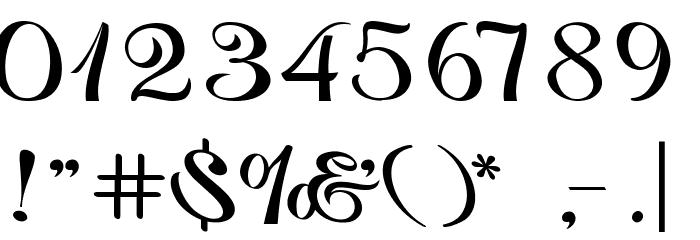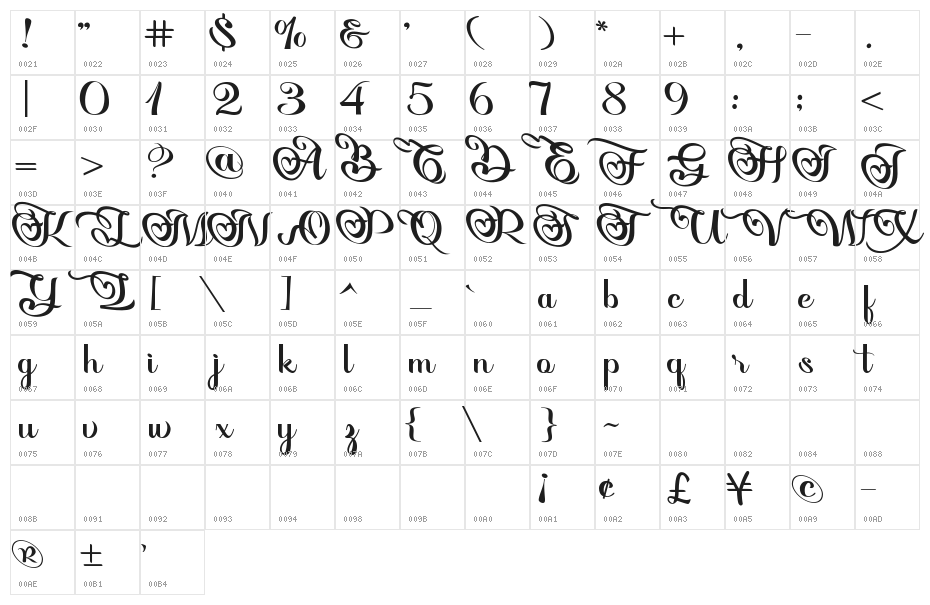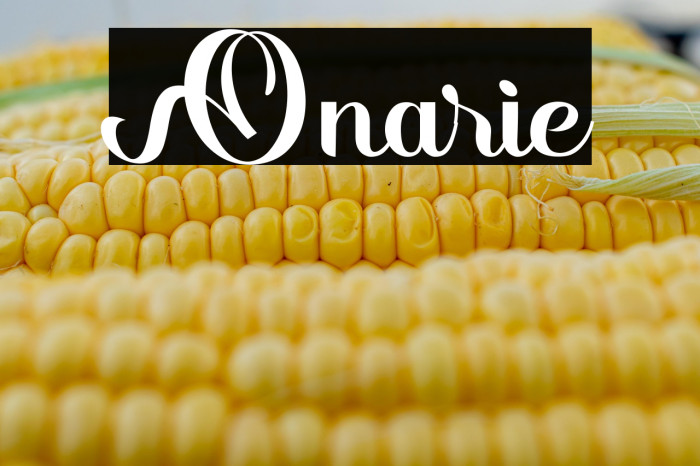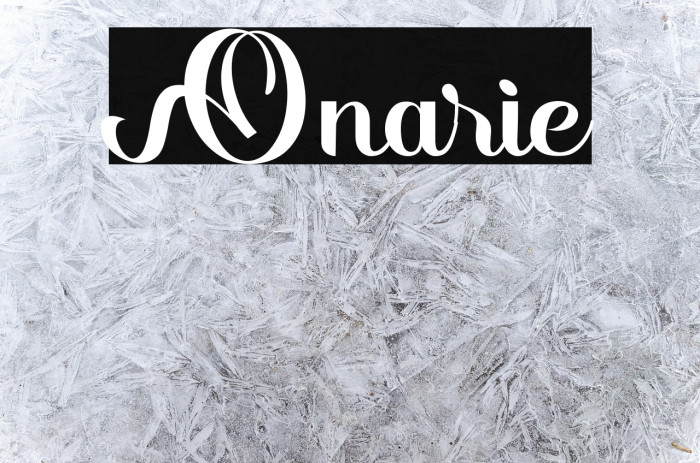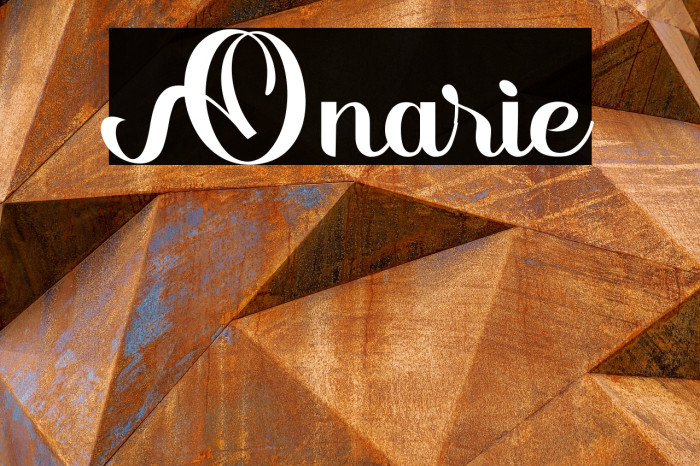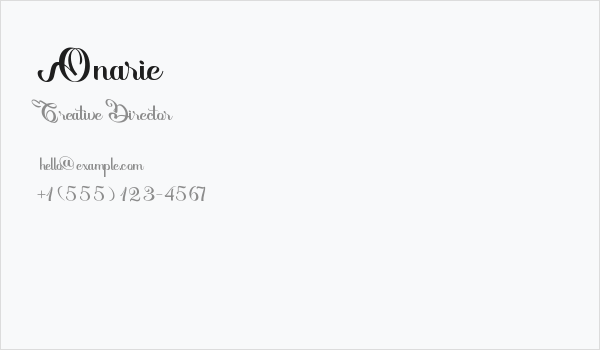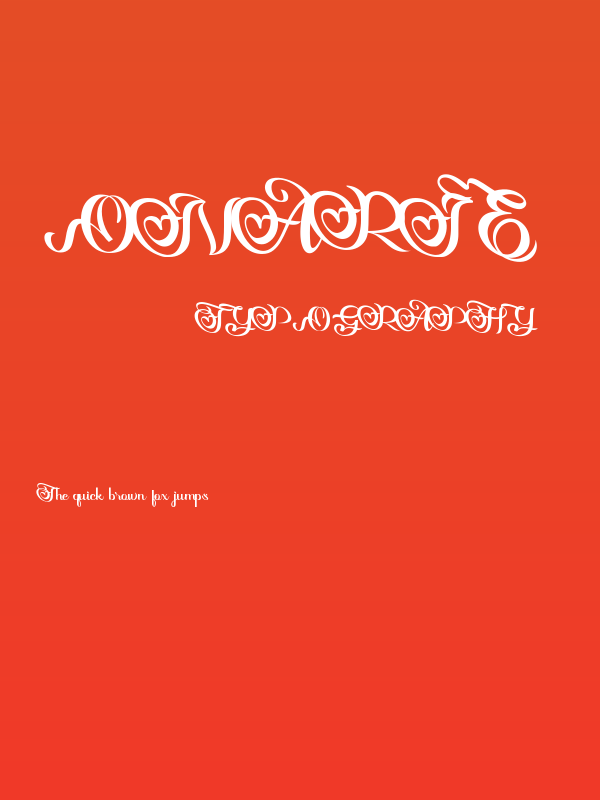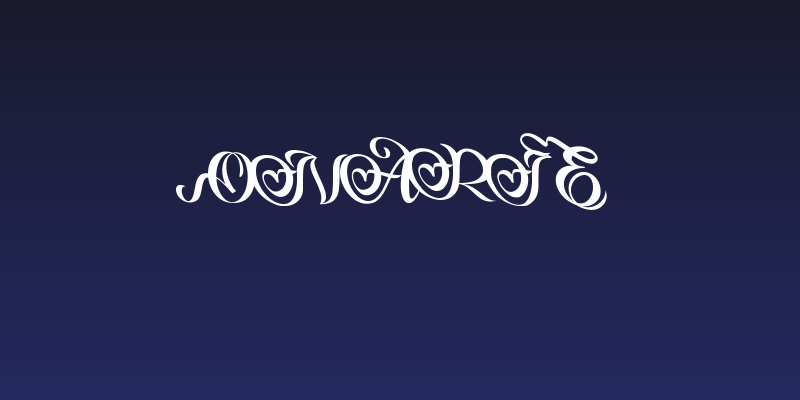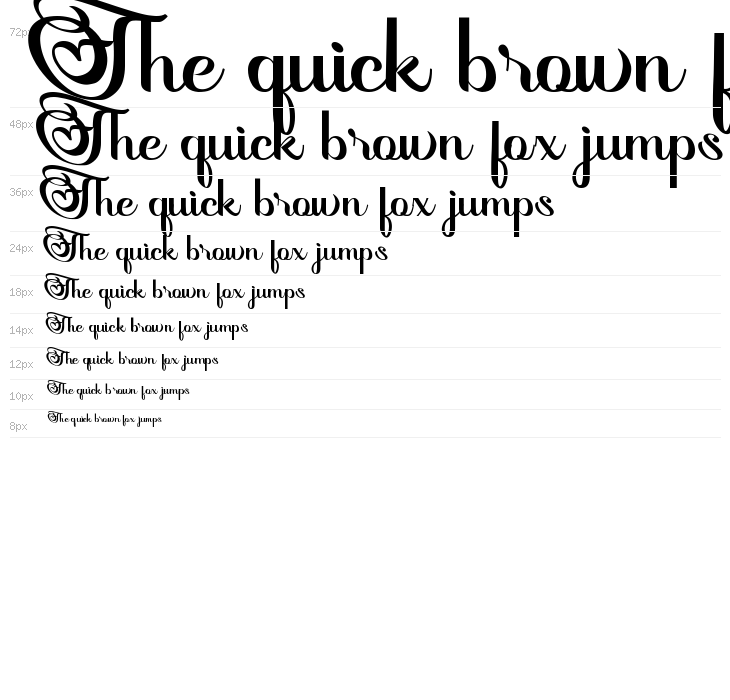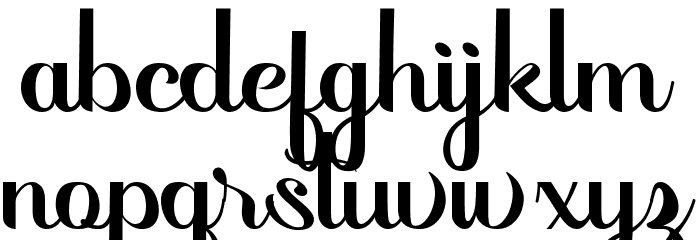
Onarie Font
Onarie Description
This font features a unique blend of decorative and script elements, creating an elegant and sophisticated appearance. The uppercase letters are highly ornamental, with intricate loops and swirls that add a touch of luxury and flair. The lowercase letters maintain a more traditional script style, with smooth curves and a flowing baseline that enhances readability. The numerals are bold and slightly condensed, providing a strong visual presence. Special characters are designed with the same attention to detail, ensuring consistency across all glyphs. This font is perfect for projects that require a touch of elegance and creativity.
| Proposed Projects | Ideal for wedding invitations, luxury branding, elegant packaging, and artistic posters. |